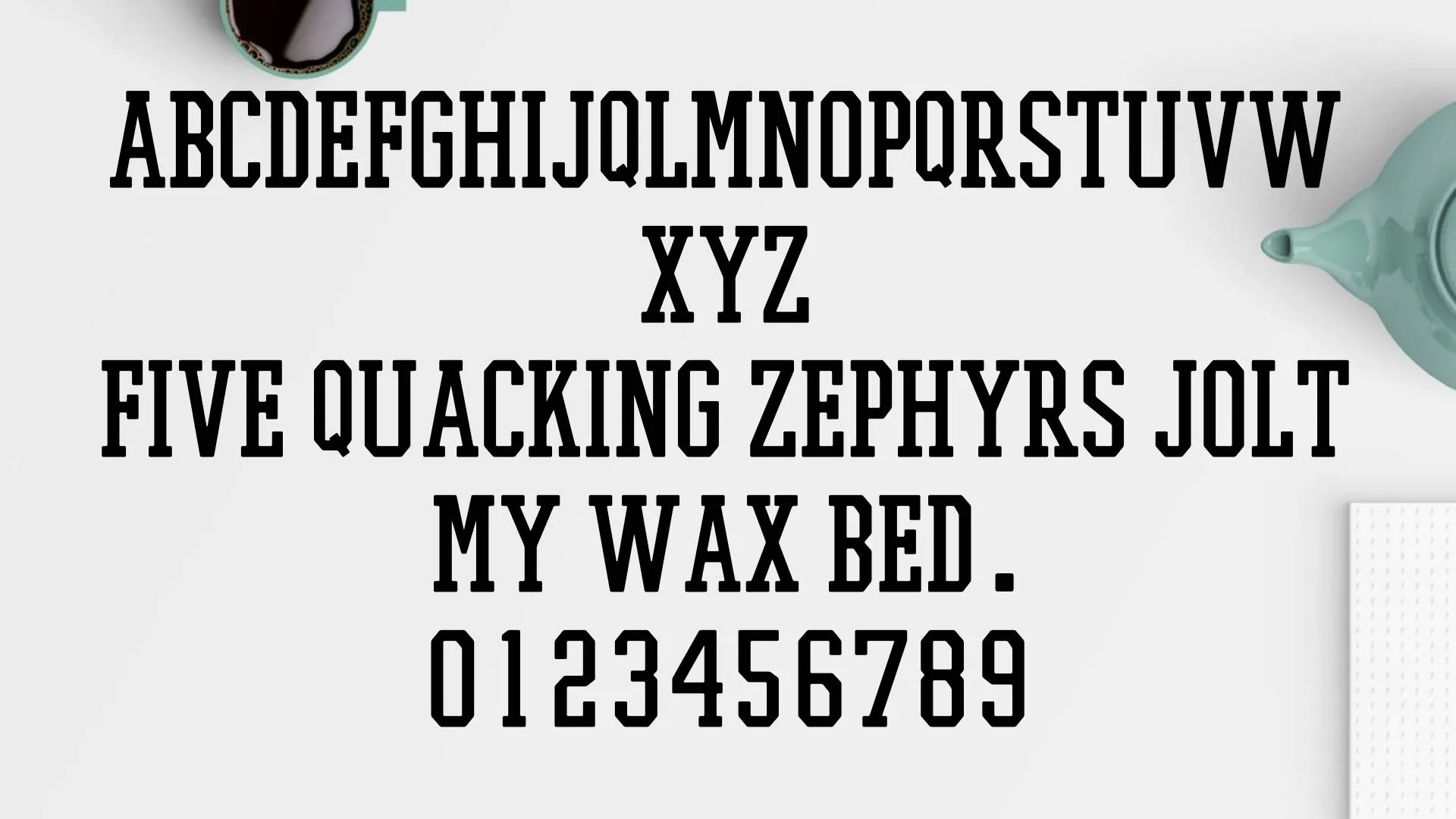
Introducing a splendid texture typeface that has athlete attention that is Promesh Font. This stunning type belongs to the category of serif family. It is designed by Paul Reis, the designer who make this typeface with his crafty skill. its characters seem high professional and can be fit on athletic and sport apparel designs. The typeface family is under the limitation and only useful for casual works.
This typeface is much similar to the Athelas Font that is also a serif typeface that can also be utilized for sports clothing designs as well. And you can make immersed outstanding thing with the pairing of these two typefaces. While promesh typeface has Truetype features and has 3 beautiful styles as well.
The typeface styles include Promesh Mesh Regular, Promesh Regular, and Promesh Stitch Regular as well. Its styles are very specific and can be fit on any kind of design due to its special styles.
The typeface is also useful for display projects and special for heading or titling as well. The person who wants to establish an athlete clothing brand and wants his brand logo then he can make a stunning typography logo with this typeface.
- Promesh Mesh Regular
- Promesh Regular
- Promesh Stitch Regular
The typeface is the best serif font that has beautiful high legible characters. It is a monospace typeface because its characters get the same spaces.
The typeface is very modern for branding projects but especially for sports clothing designs. Because it has specific styles that specially made for this purpose.